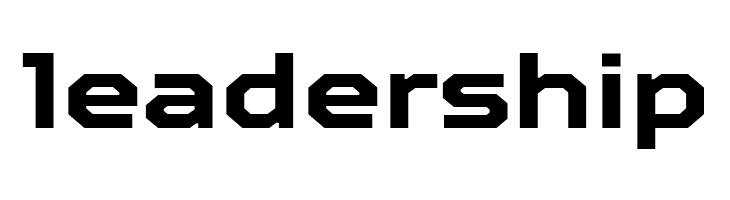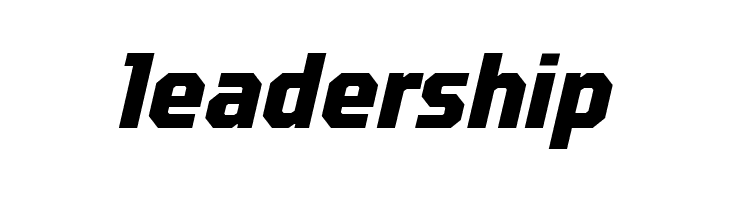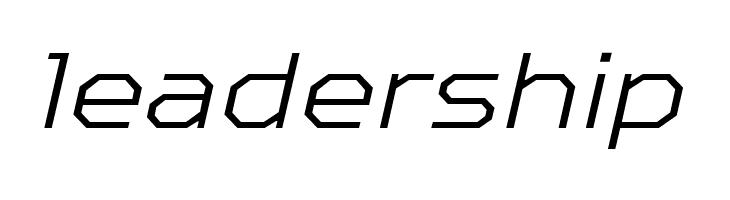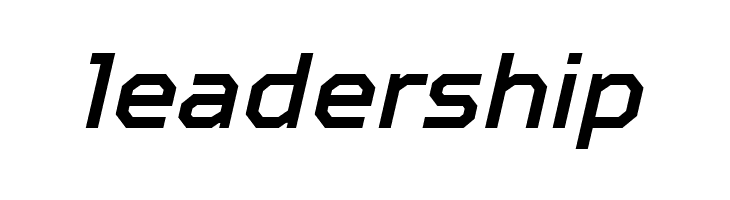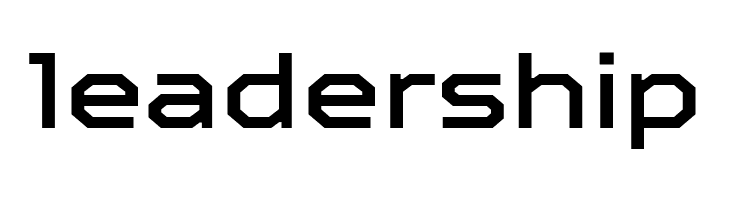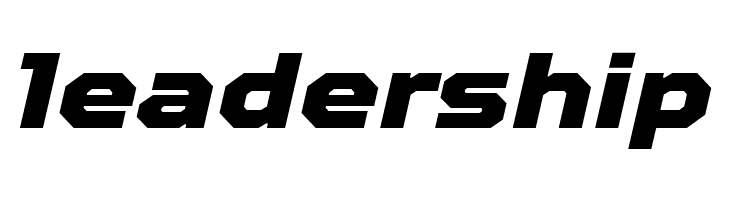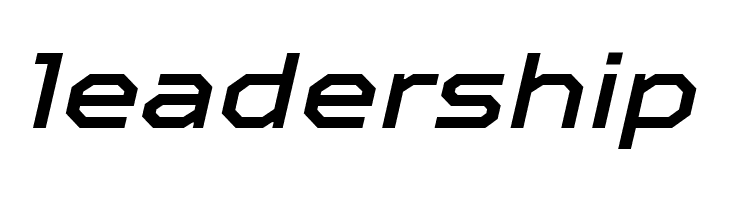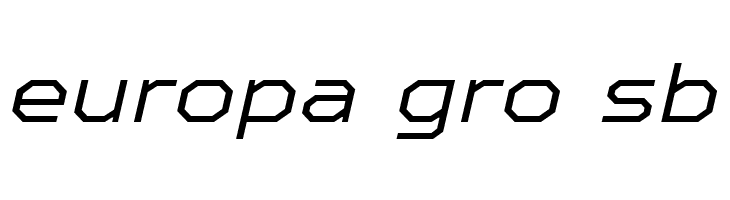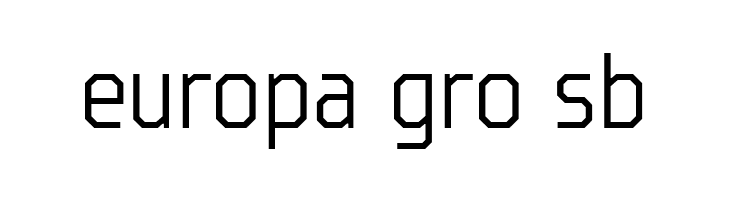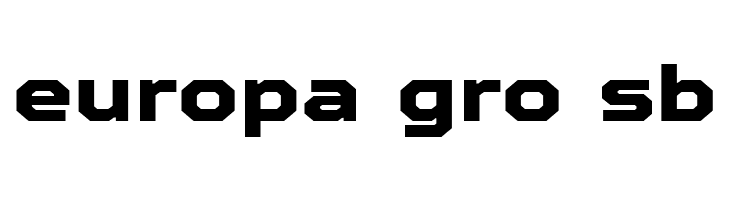
A geometric, angular font with octagonal shapes and a modern, technical appearance.
A geometric, angular, and italic font with a futuristic and modern appeal.
A bold, condensed, and italic geometric font with a modern, angular design.
A geometric, octagonal font with a modern and technical style.
A modern, geometric font with angular, italicized characters and a condensed, extra light style.
A geometric and modern font with angular shapes and clean lines.
A modern, geometric font with angular, italicized characters.
A bold, geometric font with a square-like, futuristic design.
A bold, geometric font with angular edges and a modern slant.
A bold, geometric font with blocky, angular letterforms and a modern aesthetic.
A bold, geometric font with an italic slant and expanded width.
A bold, geometric font with a modern and square-like design.
A modern, angular font with a dynamic and futuristic design.
A geometric, angular font with a modern, italicized style.
A geometric, octagonal font with a modern and futuristic style.
A geometric, italicized font with octagonal shapes and a modern, tech-inspired style.
A geometric, modern font with square-like characters and clean lines.
A geometric, angular font with a modern, italicized style.
A geometric, modern font with octagonal shapes and clean lines.
A geometric, angular font with octagonal shapes and a modern aesthetic.
A geometric, angular font with a modern, slanted design.
A bold, geometric font with a modern, tech-inspired style and italicized slant.
A geometric, futuristic font with octagonal shapes and clean lines.
A geometric, italicized font with octagonal shapes and a futuristic style.
A modern, angular font with a geometric and slightly italicized design.
A modern, geometric font with clean lines and angular shapes.
A geometric, angular typeface with a modern, italicized style.
A geometric, modern font with octagonal shapes and clean lines.
A modern, geometric font with angular, italicized characters.
( Fonts by TypeType Foundry )
A geometric, octagonal typeface with a modern, technical look.
( Fonts by TypeType Foundry )
A geometric, grid-based font with a modern, technical look.
( Fonts by TypeType Foundry )
A geometric, angular font with octagonal shapes and a modern slant.
( Fonts by TypeType Foundry )
A bold, geometric font with a modern, angular design.